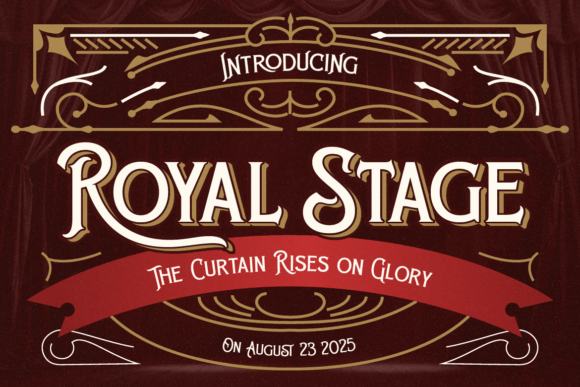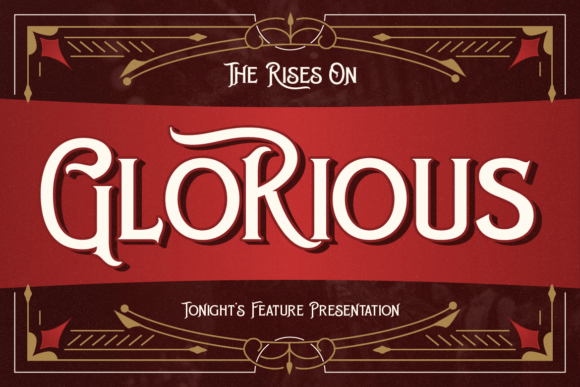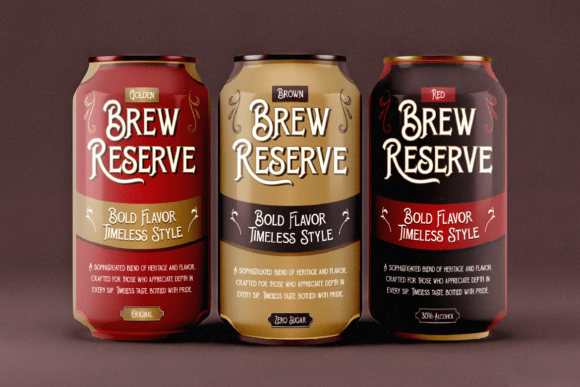
Rusther Regular Font
Rusther typeface is a bold display font with a classy twist. Inspired by vintage lettering and a touch of Victorian simple vibes, this font brings drama and elegance without being too extra. Its stylish ligatures, clean curves, and ornamental details make it perfect for posters, wine labels, logos, or anything that needs a timeless stage-ready look.
If you’re going for retro elegance, old-theater charm, or modern vintage branding, Rusther will make your design shine with simple Victorian flair.